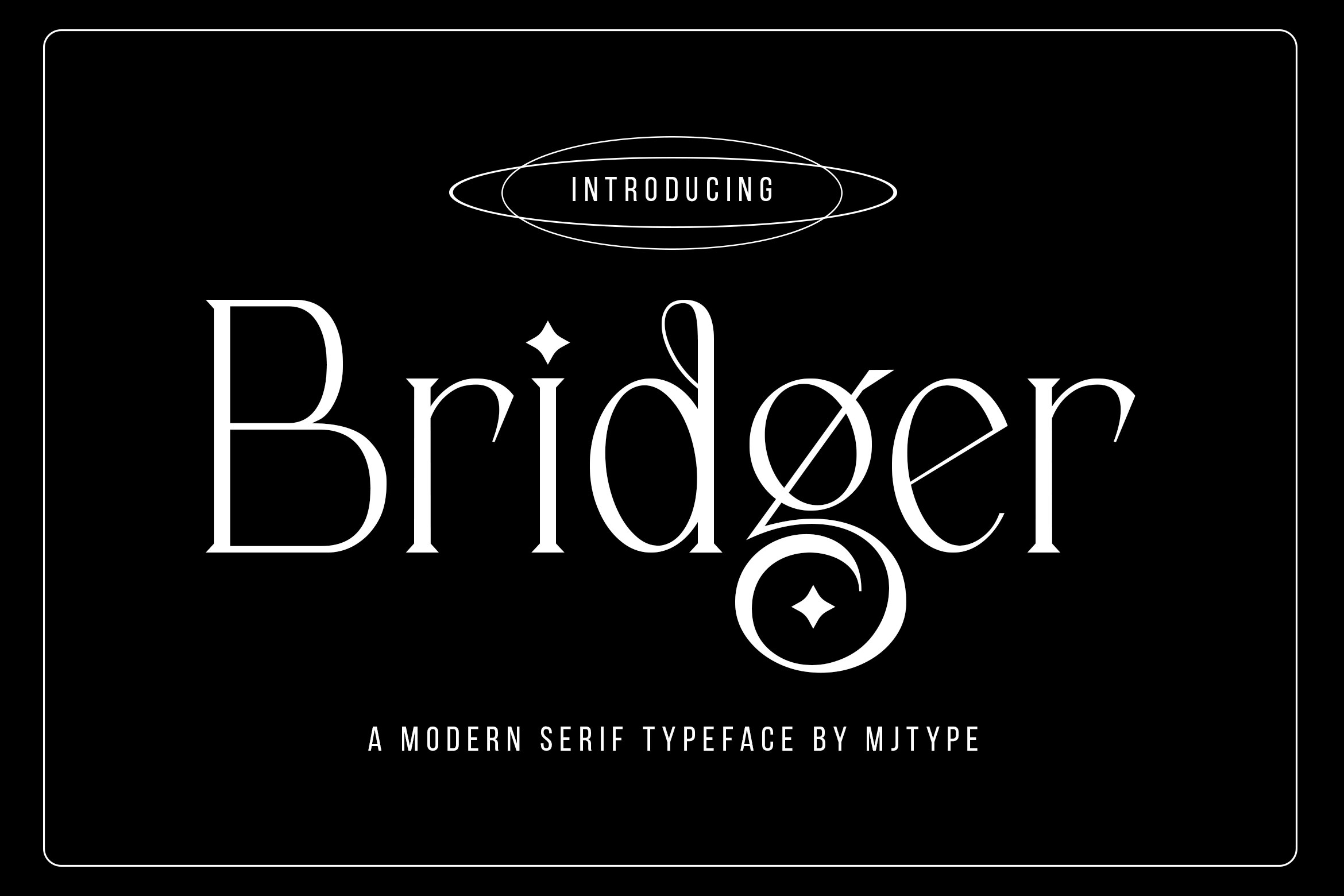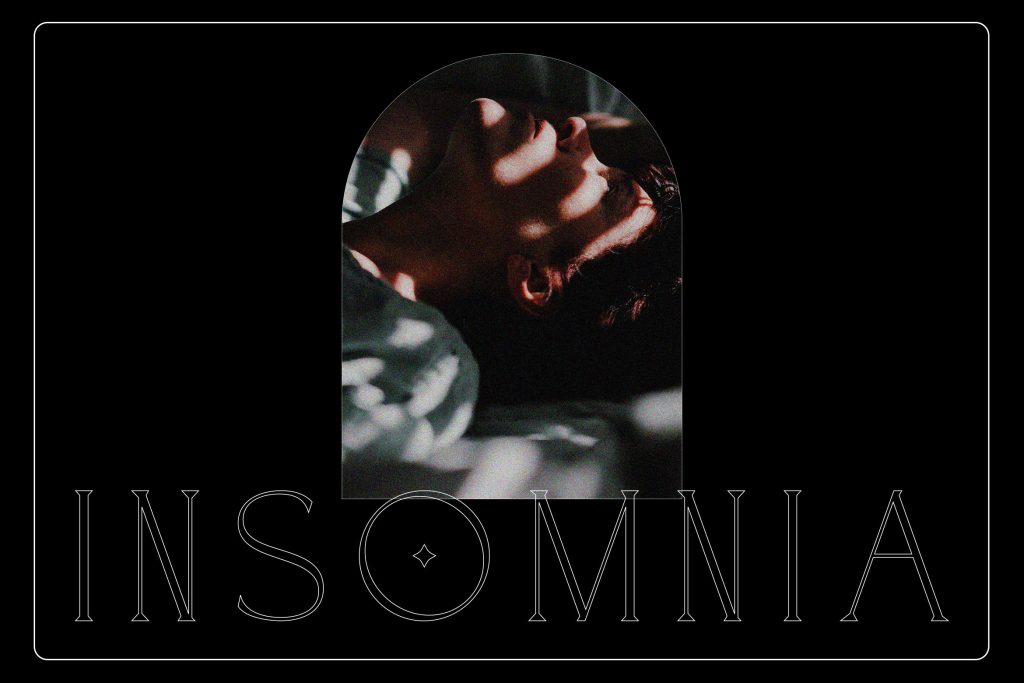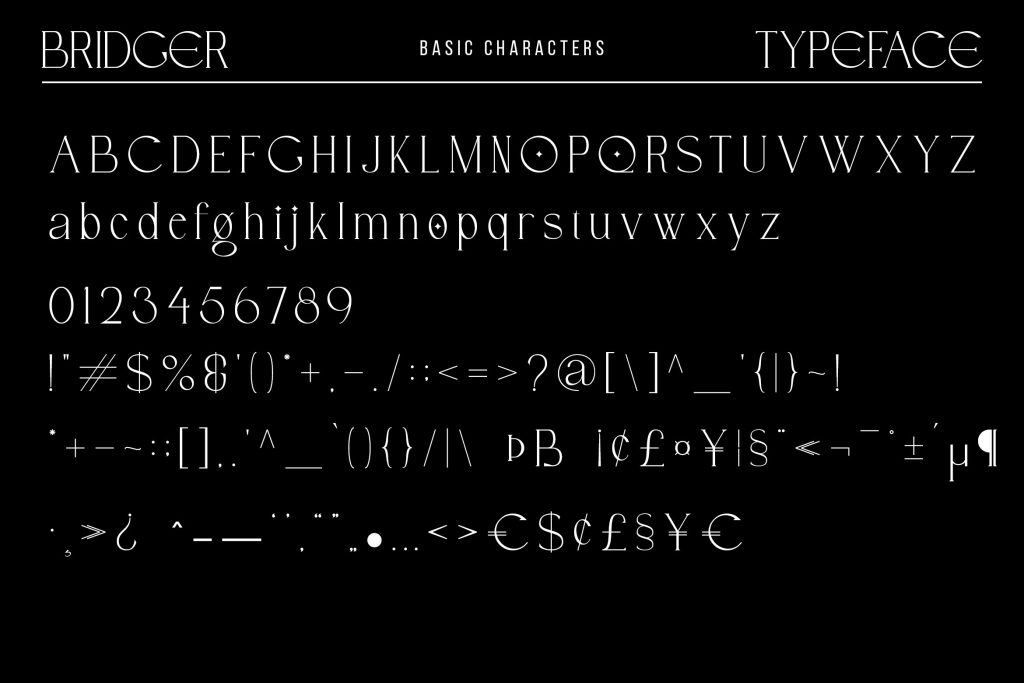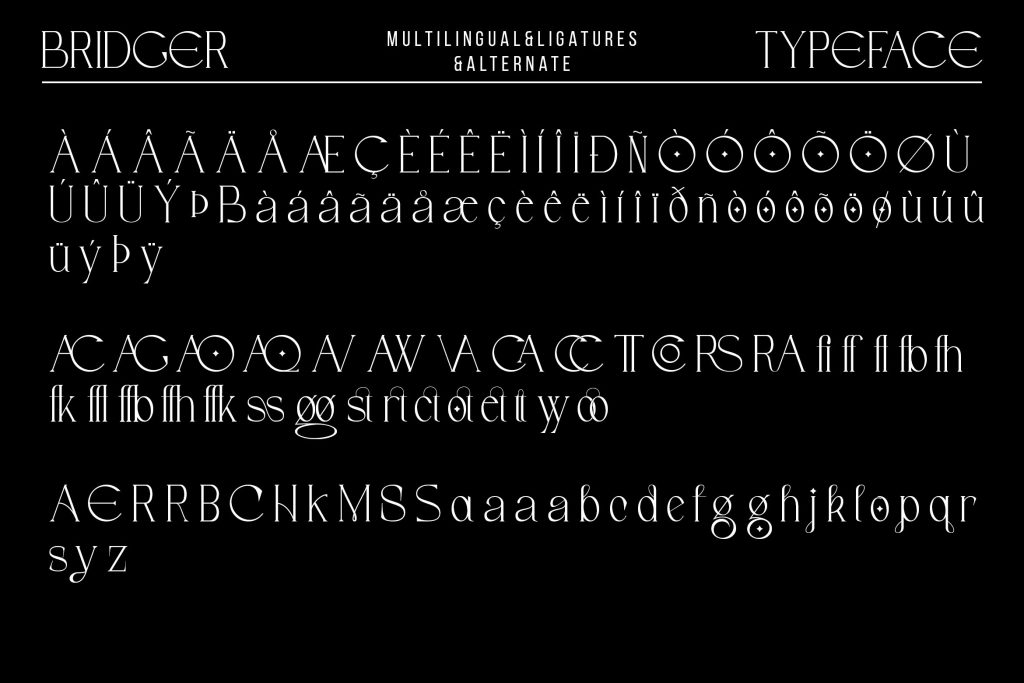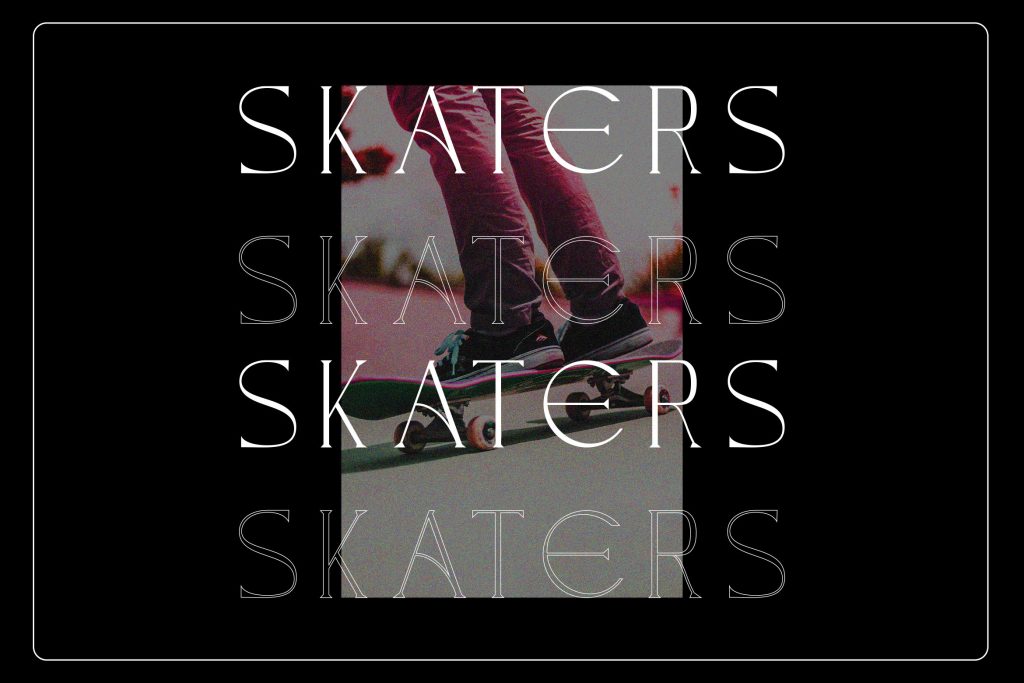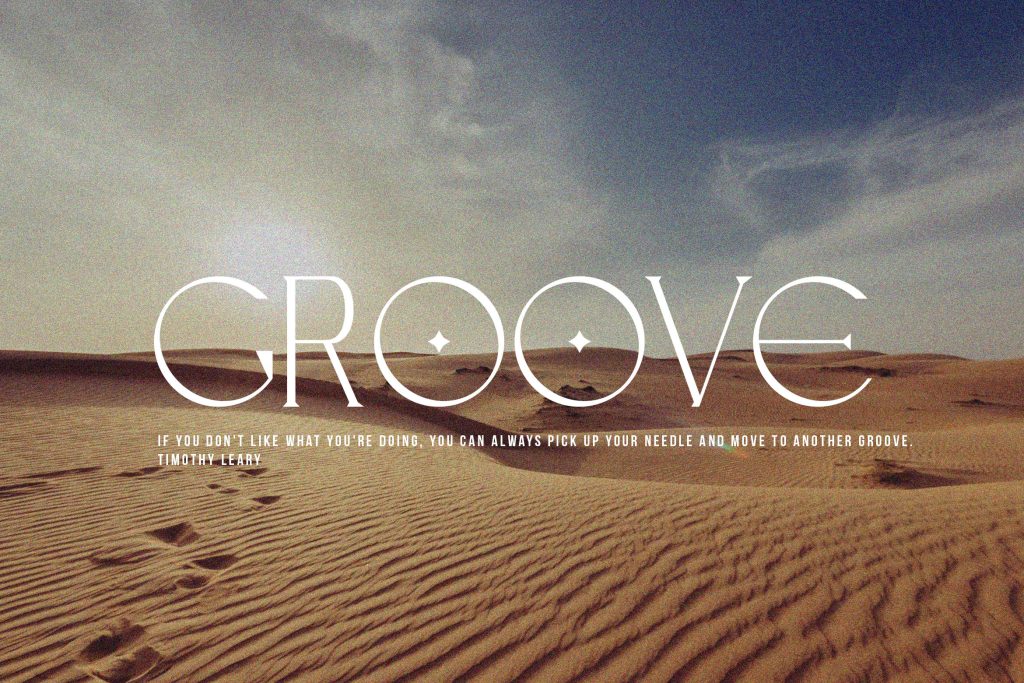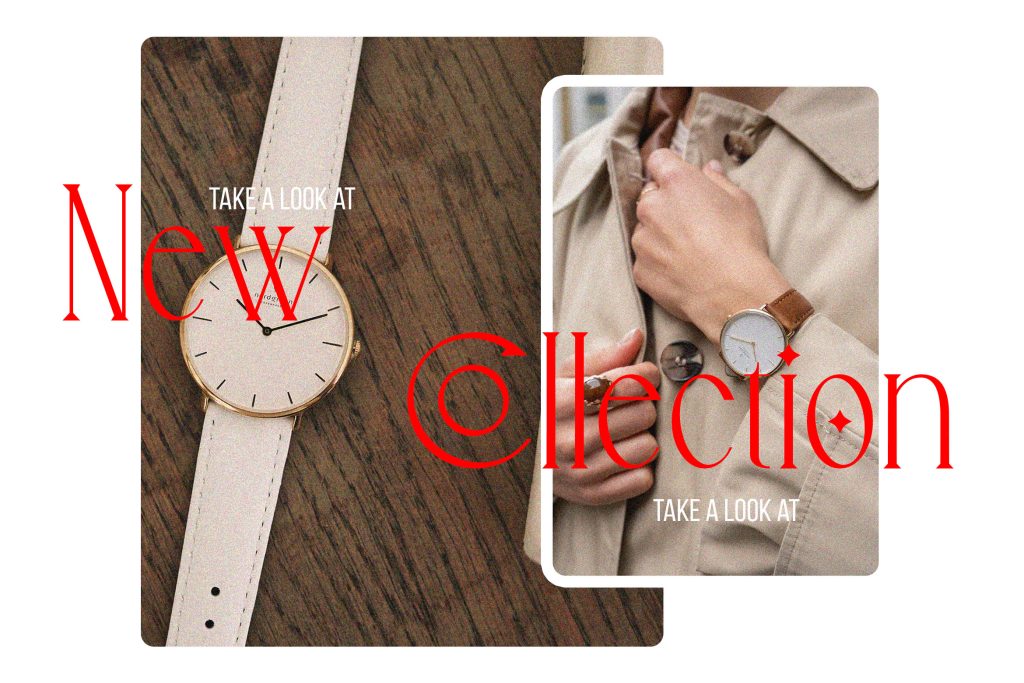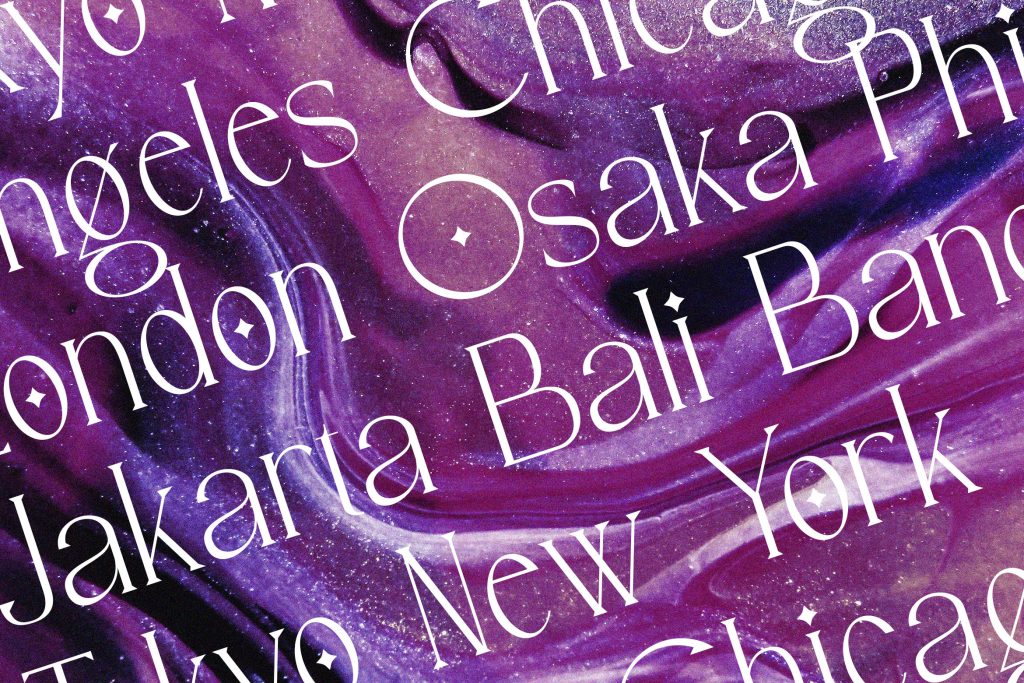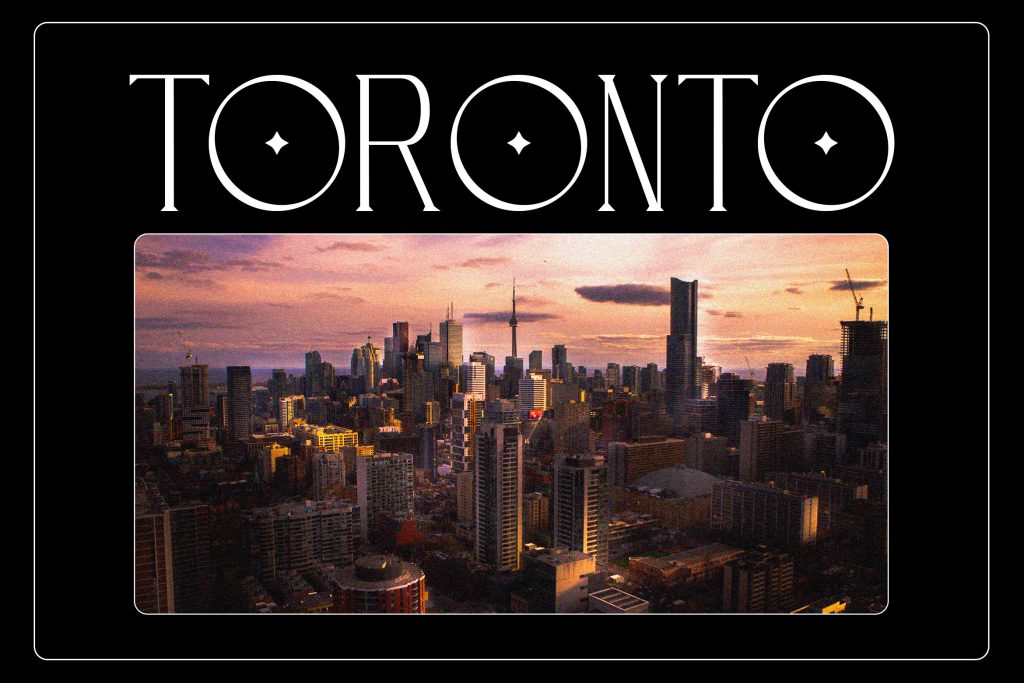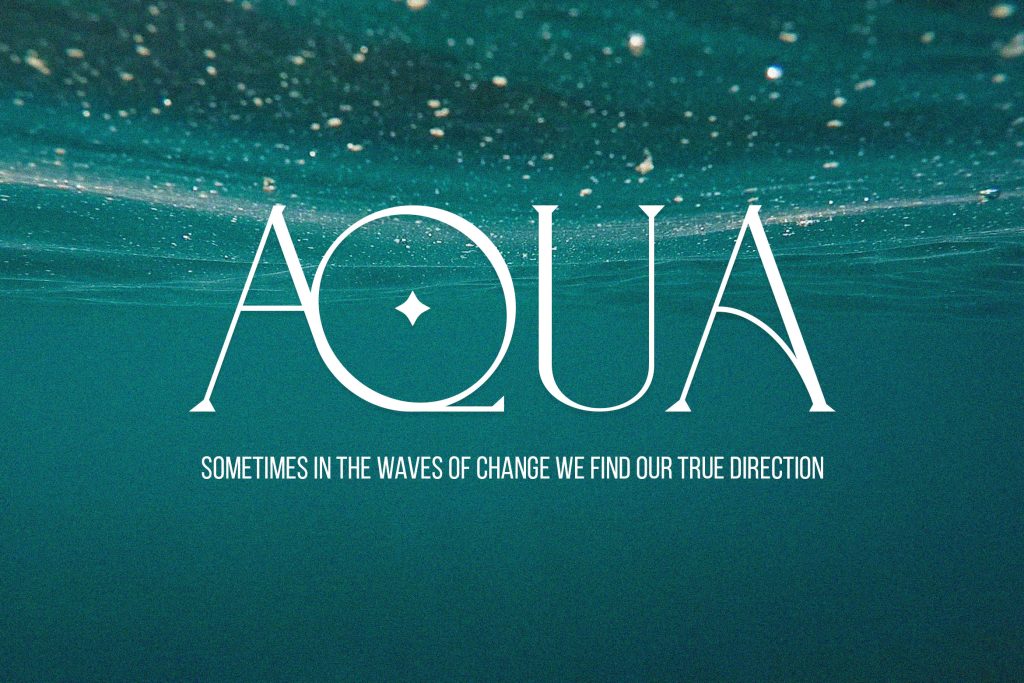
Introducing Bridger, a sophisticated modern serif typeface crafted to bring elegance, luxury, and contemporary style to your creative projects. With its refined letterforms, graceful curves, and distinctive decorative details, Bridger offers a perfect balance between timeless serif tradition and modern design aesthetics.
Designed for creators who want to make a lasting impression, Bridger features unique characters that add personality and exclusivity to every composition. Whether used for high-end branding, editorial layouts, fashion campaigns, or premium packaging, Bridger delivers a striking visual presence with effortless sophistication.
Features
- Modern Serif Typeface
- Elegant & Luxury Style
- Unique Decorative Characters
- Uppercase & Lowercase Letters
- Numbers & Punctuation
- Multilingual Support
- High Readability with Stylish Details
- Suitable for Print and Digital Projects
Perfect For
- Luxury Branding
- Fashion & Beauty Projects
- Logo Design
- Editorial & Magazine Layouts
- Product Packaging
- Wedding Stationery
- Social Media Content
- Photography & Lifestyle Branding
What Makes Bridger Special?
Bridger combines clean modern proportions with artistic serif details, creating a typeface that feels both sophisticated and memorable. Its distinctive character shapes help brands and designers create bold visual identities while maintaining an elegant and professional appearance.
Bring timeless elegance and modern luxury to your designs with Bridger.